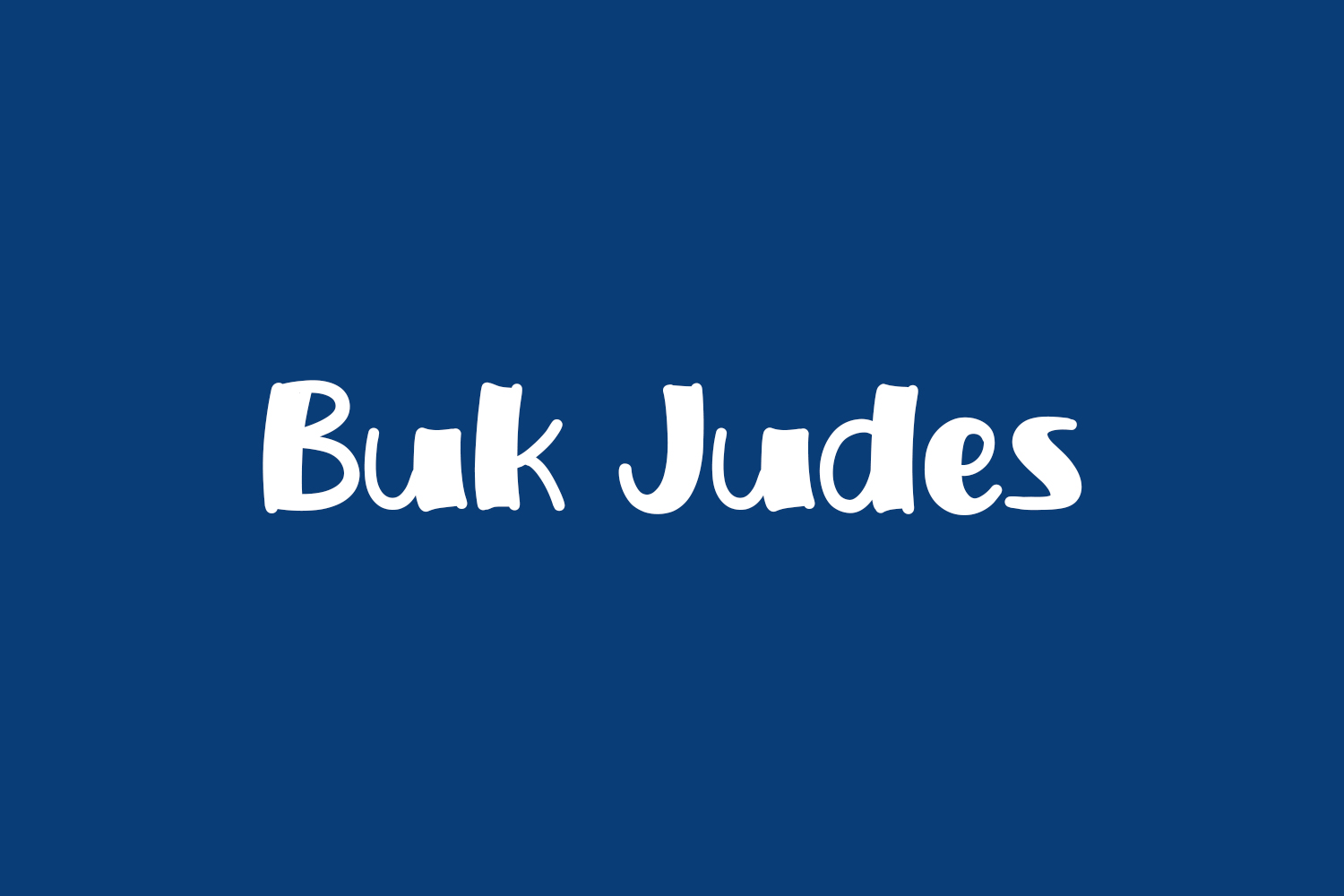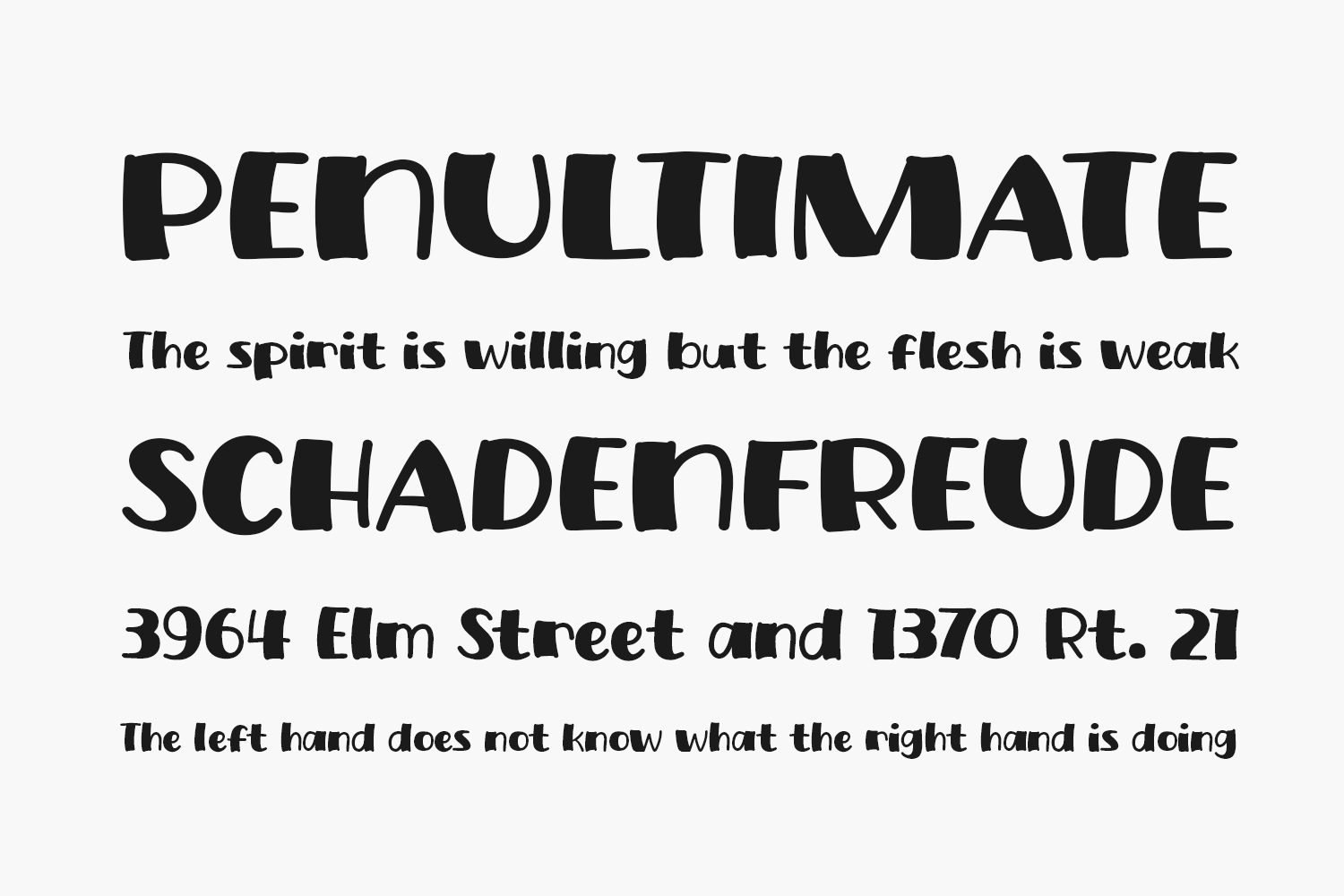
Discover Buk Judes Free Font, a contemporary and stylish display typeface ideal for posters, logos, magazines, book covers, banners, and beyond. Elevate your designs with this remarkable font and witness its transformative impact. With versatility that seamlessly complements a wide range of projects, incorporate Buk Judes into your creative endeavors to see them truly shine. Buk Judes Free Font was designed by Khurasan and is free for personal or commercial use.